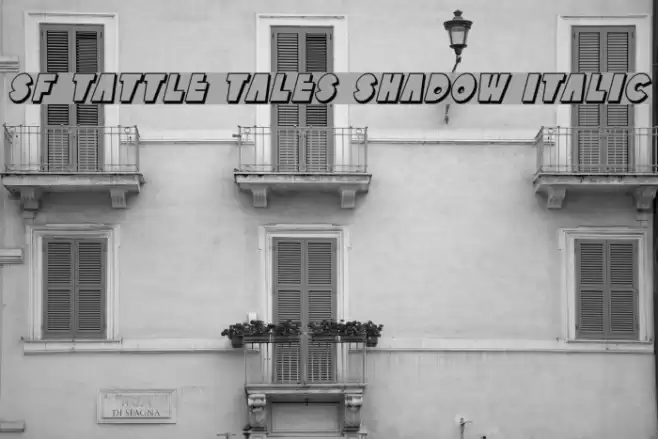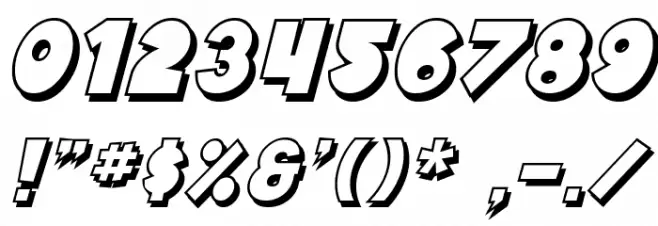
SF Tattle Tales Shadow Italic Font
SF Tattle Tales Shadow Italic Description
This font features a bold, dynamic style with a distinct shadow effect that gives it a three-dimensional appearance. The characters are uppercase and have a strong geometric structure, with sharp angles and clean lines. The italic slant adds a sense of motion and energy, making it stand out. The shadow is consistent across all characters, enhancing the depth and making the text pop against the background. This font is ideal for creating eye-catching headlines or titles that require a bold statement. The spacing between characters is tight, which contributes to its compact and impactful look.
Bold, italic font with a shadow effect and geometric structure from Decorative fonts.
- Proposed Projects: Ideal for posters, logos, and headlines that need a striking and dynamic appearance.
- Character Spacing: Tight